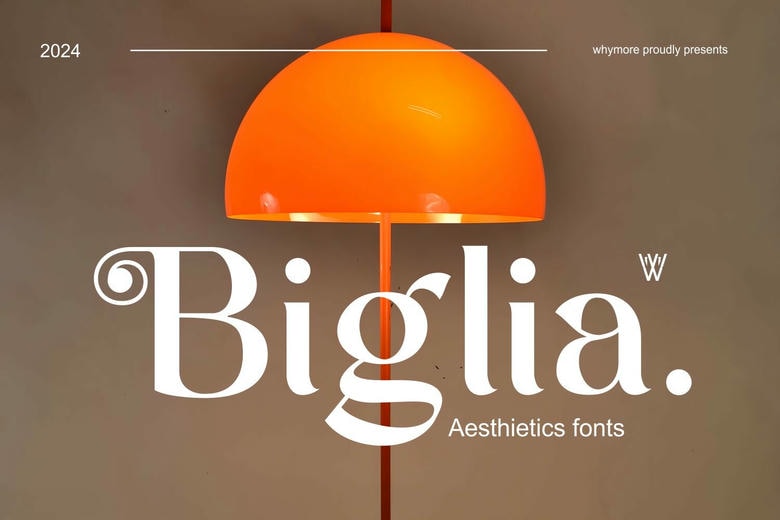
Biglia Font
Biglia is the most modern bold condensed sans-serif font that can be used to add some impact and sophistication to your design projects. It has smooth and slim ratios which are best suited to bold headlines, professional branding, editorial layouts, and online content.
Biglia Sans Serif Font